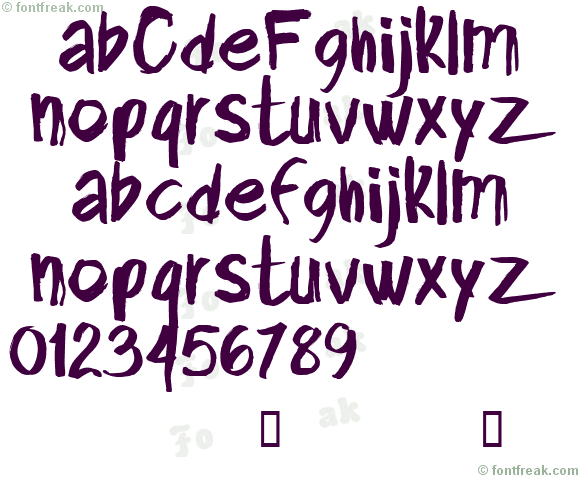
CF Final Conflict Regular
CF Final Conflict Regular by Cloutierfontes is an engaging display font that captures attention with its unique handwritten aesthetic. This font exhibits a casual yet dynamic appeal, making it ideal for projects that require a personal touch. The strokes are moderately bold, with an irregularity that mimics natural handwriting, adding an organic feel to any design. Its slightly varied spacing provides a sense of movement, making the text come alive on the page.
This font is particularly well-suited for a variety of creative applications. For instance, it can enhance the charm of wedding invitations, lending an intimate and heartfelt vibe. Additionally, CF Final Conflict Regular is perfect for movie posters, where its expressive style can convey intrigue and emotion. Restaurant menus can also benefit from this font, as it adds a welcoming and friendly atmosphere that invites patrons to explore the offerings. Content creators looking to add a personal touch to their branding will find this font equally appealing for social media graphics and marketing materials.
Targeted towards graphic designers, small business owners, and content creators, CF Final Conflict Regular offers versatility in its use. Its freeware license makes it accessible for anyone looking to elevate their projects without incurring costs.
What sets CF Final Conflict Regular apart is its ability to blend professionalism with a casual flair. The font stands out not just for its visual appeal but also for the emotional connection it fosters with the viewer. Whether for a personal invitation or a promotional campaign, this font adds character and warmth, making it a valuable choice for any designer's toolkit. For those interested, a CF Final Conflict Regular font free download is available, allowing easy access to this stunning typeface.